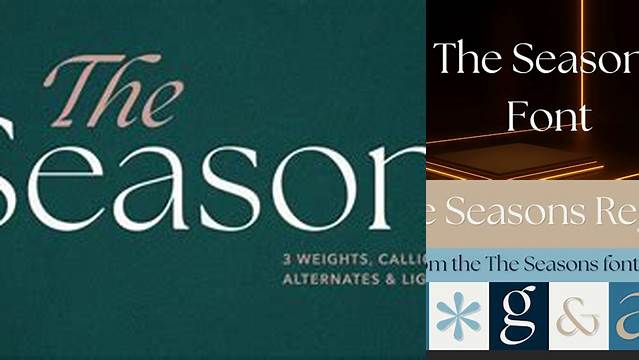
The Seasons Light Font: Your Ultimate Free Design Guide
Unveiling The Seasons Light: Your New Go-To Font
Hey everyone, if you're on the hunt for a fresh, stylish font that'll make your designs pop, then you're in the right place! Today, we're diving deep into the world of "The Seasons Light" - a fantastic free font that's been making waves in the design community. This article is your ultimate guide to everything Seasons Light: what it is, why you should use it, where to find it, and how to get the most out of it. I'm going to take you through a detailed exploration, ensuring you have all the info you need to incorporate this beautiful font into your projects seamlessly.
Let's kick things off with the basics. "The Seasons Light" isn't just any font; it's a carefully crafted typeface designed to bring a touch of elegance and readability to your work. It boasts a unique blend of modern and classic aesthetics, making it versatile enough for a wide array of uses. Whether you're working on a website, a print project, or a social media campaign, Seasons Light has the potential to be a game-changer. Its clean lines and balanced proportions make it incredibly easy on the eyes, ensuring that your message is not only visually appealing but also easily understood. One of the standout features of this font is its lightweight design, which gives it a delicate yet impactful presence. This makes it an excellent choice for headings, titles, and even body text, providing a sense of sophistication without overwhelming the reader. The designer has clearly put a lot of thought into the details, ensuring that each letter is perfectly formed and harmonizes with the others. Moreover, the font's availability as a free resource is a huge plus, allowing both seasoned designers and beginners to experiment with its capabilities without any financial barriers. You'll find that the font's versatility extends to its compatibility with various design software and platforms. This broad compatibility means that whether you're a fan of Adobe products, open-source tools, or online design platforms, you'll likely be able to integrate Seasons Light into your workflow without any hassle. In the following sections, we will delve deeper into how you can download and install the font, explore some creative applications, and provide tips to help you make the most of its unique features. Let's get started! This font is more than just a tool; it's a gateway to enhancing your design work and leaving a lasting impression on your audience. So, stick around as we unpack everything you need to know to make this font a staple in your design arsenal.
Why Choose The Seasons Light? Key Features and Benefits
Alright guys, let's talk about why "The Seasons Light" is a fantastic choice. When choosing a font, you want something that's going to give you the look and feel you're after. Seasons Light offers several key features that set it apart from the crowd. First and foremost, it’s incredibly readable. In a world where information is king, you want a font that is easy to understand at a glance. Seasons Light excels in this area, with each character carefully shaped to ensure optimal clarity. This is especially important for body text, where readability can significantly impact the user experience. Its clean and modern design brings a touch of elegance to your projects. It strikes a perfect balance between simplicity and sophistication. This means that the font won't clash with your other design elements; instead, it will enhance them. The designer has paid attention to the fine details, resulting in a font that feels polished and professional. It's also incredibly versatile, fitting a wide range of design applications. The Seasons Light font is adaptable enough to be used across various mediums. Whether you're designing a website, creating marketing materials, or working on personal projects, this font will adapt perfectly. One of the great things about Seasons Light is that it is free to use. Being a free resource, it is accessible to everyone. This is especially beneficial for freelancers and those who are just starting out and are on a budget. Its lightweight design gives your designs a delicate yet impactful presence. The font's lighter weight gives it a certain grace and airiness that sets it apart. It's ideal for adding a touch of elegance to your work without overpowering the overall design. Another point worth mentioning is the font's broad compatibility. This means it's accessible on multiple platforms and applications, which makes it easy to integrate into your workflow. Also, it’s suitable for a range of uses. The font works well for headlines, subheadings, and body text, offering flexibility in how you apply it. The character set supports various languages, allowing you to reach a global audience. This is a huge plus if your project requires multilingual support. By selecting The Seasons Light, you are opting for more than just a font. You're investing in a versatile and user-friendly design tool that will help you create visually engaging content. Whether you're a seasoned designer or new to the game, this font can help you achieve remarkable results.
Creative Applications: Where to Use The Seasons Light Font
Alright, let's get creative! "The Seasons Light" is a versatile font, and its potential uses are endless. Whether you're working on personal projects or professional gigs, this font can add a touch of elegance and clarity to your designs.
First off, let’s talk about websites. The Seasons Light font works incredibly well for website designs. Its clean lines and readability make it an excellent choice for headings, subheadings, and even body text. You can use it to create a modern, user-friendly website that is both visually appealing and easy to navigate. You can experiment with different weights and styles of the font to create visual hierarchy and emphasize key content. Next up, social media graphics. In today's digital landscape, social media is king. Seasons Light is perfect for crafting eye-catching social media posts, infographics, and marketing materials. It’s a great choice for creating visually appealing quotes, announcements, or any other content you want to share. Moreover, it can be used in print materials. The font is also well-suited for print projects, such as brochures, flyers, and posters. Its clarity and elegance ensure that your message is communicated effectively. The font can be used in branding and logos. Seasons Light is a great choice when creating a logo or a consistent brand identity. Its simple design allows it to blend seamlessly with other graphic elements and is a great way to capture the attention of your audience. In addition, the font can be applied to presentations. Use this font in presentations to make your slides look more professional and easy to read. The font's readability makes it a great choice for presentations. This makes sure your audience is focused on what you are saying. The Seasons Light can also be applied to e-books and documents. Whether you are writing an e-book or a formal document, this font is perfect. Its great readability makes it perfect for large amounts of text. When choosing the right font, think about your overall goal, your target audience, and the message you want to convey. By carefully selecting and applying The Seasons Light, you can transform your designs and leave a lasting impression. Experiment with different sizes, weights, and styles to see how the font can be used in the most creative and effective way for your projects. You’ll be amazed at the difference it makes!
Tips and Tricks: Making the Most of The Seasons Light Font
Okay, let's get into some insider tips to help you master "The Seasons Light". You want to make sure you are using this font to its full potential, right? Here are a few tricks to help you along the way.
First of all, try using font pairing. Combine The Seasons Light with other fonts to create a more dynamic look. Think about pairing it with a contrasting font for headings and titles or with a complementary font for body text. Experimenting with font combinations can enhance your design and create visual interest. Also, consider the weight and style. The Seasons Light font comes in different weights and styles. Play around with these to achieve the desired effect. Use bold weights for headings and lighter weights for body text. This creates hierarchy and guides the viewer's eye through your content. Experiment with different sizes. Adjust the font size based on the context. Use larger sizes for headlines to capture attention and smaller sizes for body text to ensure readability. Consider the line height and spacing. Adjusting the line height and letter spacing is important for readability. Ensure your text is easy to read by adjusting these settings according to your design needs. Pay attention to the color and contrast. Choose colors that complement the font and enhance readability. Make sure there is enough contrast between the text and the background to make it easier for readers to see the content. Don't be afraid to customize the font. Use design software to modify and adjust it to your needs. You can make your design as unique as possible with a variety of tools. Test your designs on various devices. See how the font looks on different screens. Check to make sure the font is legible across multiple devices. This allows you to make sure it looks great on mobile, tablets, and desktops. By following these tips, you will be able to get the most out of The Seasons Light font. Remember that experimentation is key. Don't be afraid to try new things, explore different combinations, and find what works best for your designs. With a bit of creativity and practice, you'll create stunning visuals that capture your audience's attention.
Conclusion: Elevate Your Designs with The Seasons Light
Alright guys, we've covered a lot today! Hopefully, you now feel confident and ready to start using "The Seasons Light" in your projects. As a recap, this font is a fantastic choice for anyone looking to add a touch of elegance and readability to their designs. Its clean lines, versatility, and free availability make it a must-have in your design toolkit. Remember, a well-chosen font can significantly impact the effectiveness of your content. Seasons Light is a great option for various projects, from websites to social media posts. By downloading and installing the font and following the tips and tricks provided, you'll be well on your way to creating visually stunning designs. I encourage you to experiment with Seasons Light, explore different styles and weights, and find what works best for your specific needs. Whether you're a seasoned designer or just starting, this font offers the potential to elevate your work and leave a lasting impression on your audience. So go ahead, download Seasons Light, and let your creativity run wild! I am excited to see what you guys create. Happy designing!